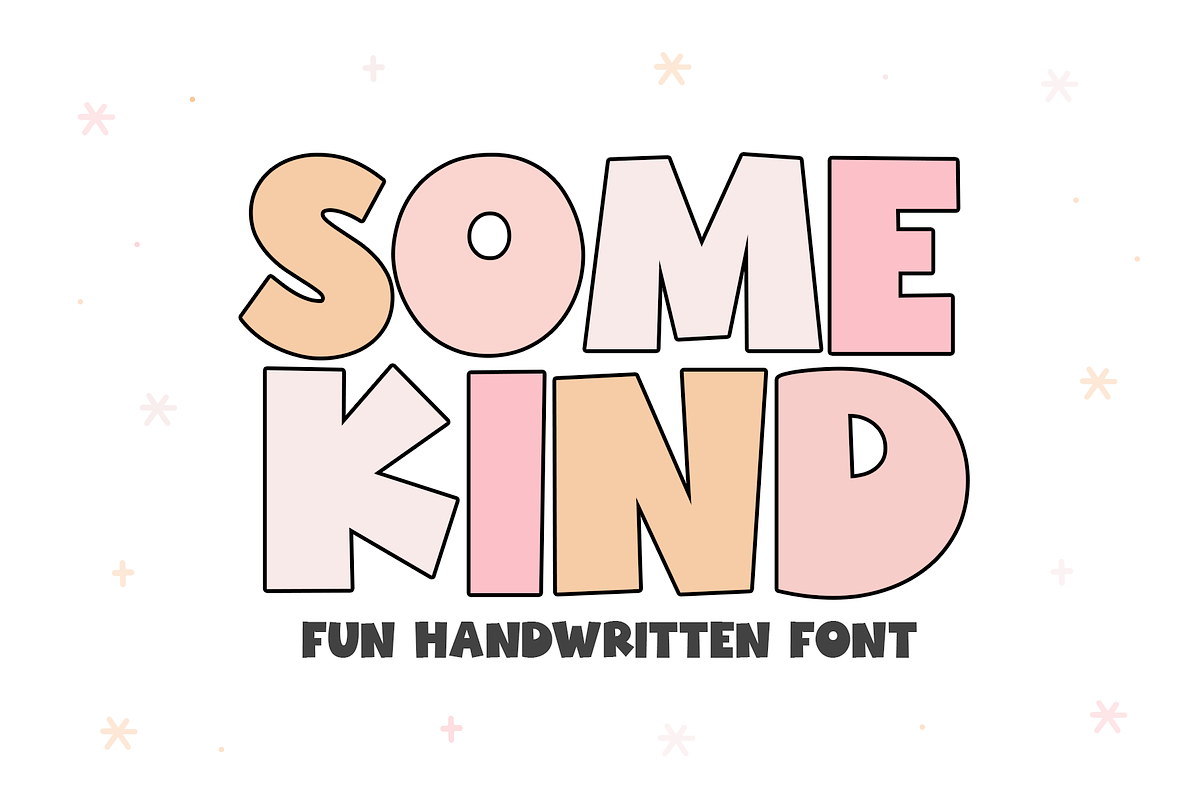
Somekind | Fun Handwritten Font Free Download is a playful and expressive handwritten typeface that brings personality and charm to your designs. With its whimsical, irregular strokes and friendly feel, this font is perfect for creating casual branding, invitations, greeting cards, social media graphics, and any creative project that needs a fun and approachable touch.
Using the Somekind | Fun Handwritten Font Free Download adds a warm, informal vibe to your typography. Whether you’re designing a logo for a playful brand, crafting invitations for a fun event, or creating vibrant social media posts, this font brings a lighthearted and unique style to your work.